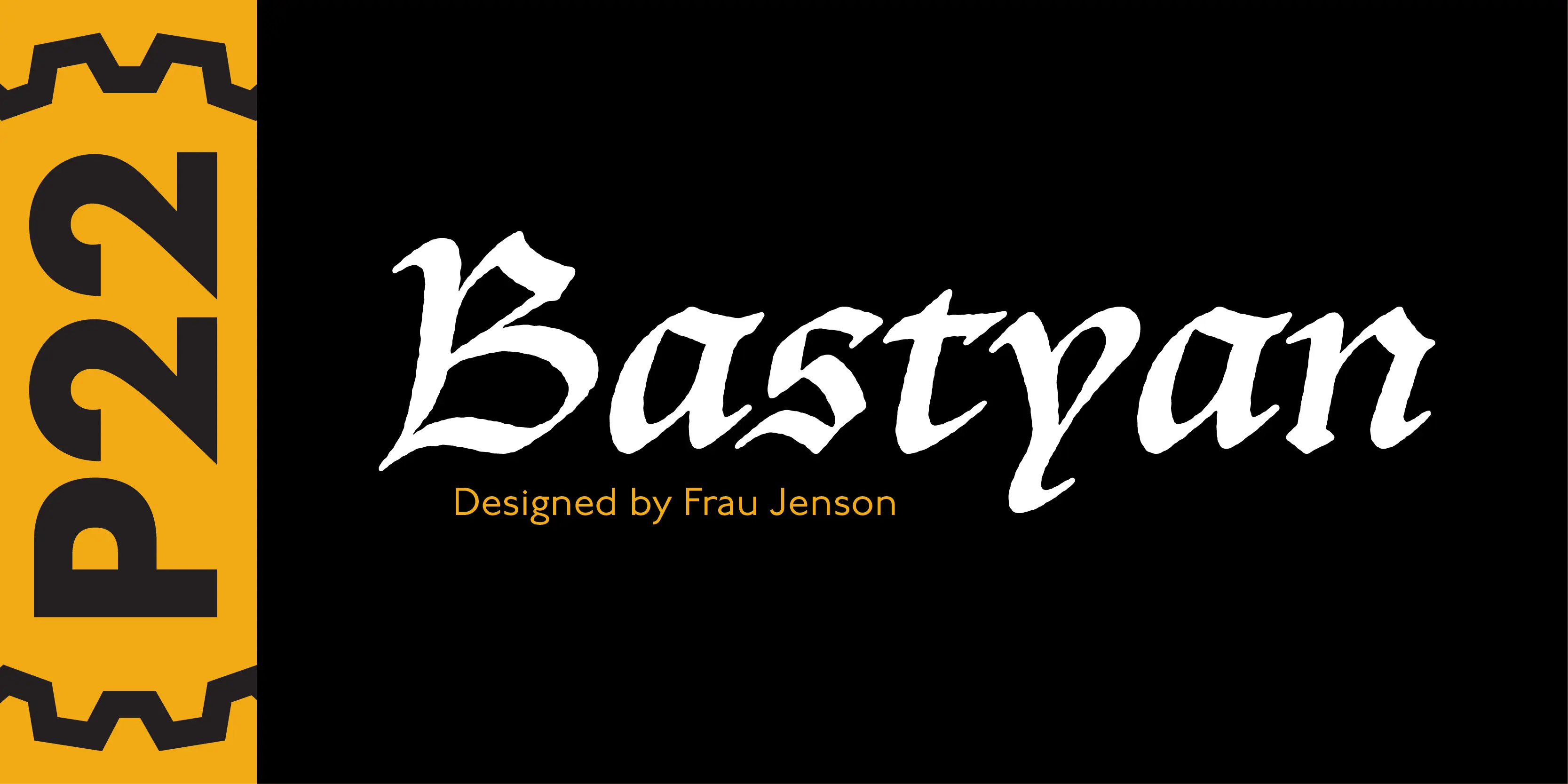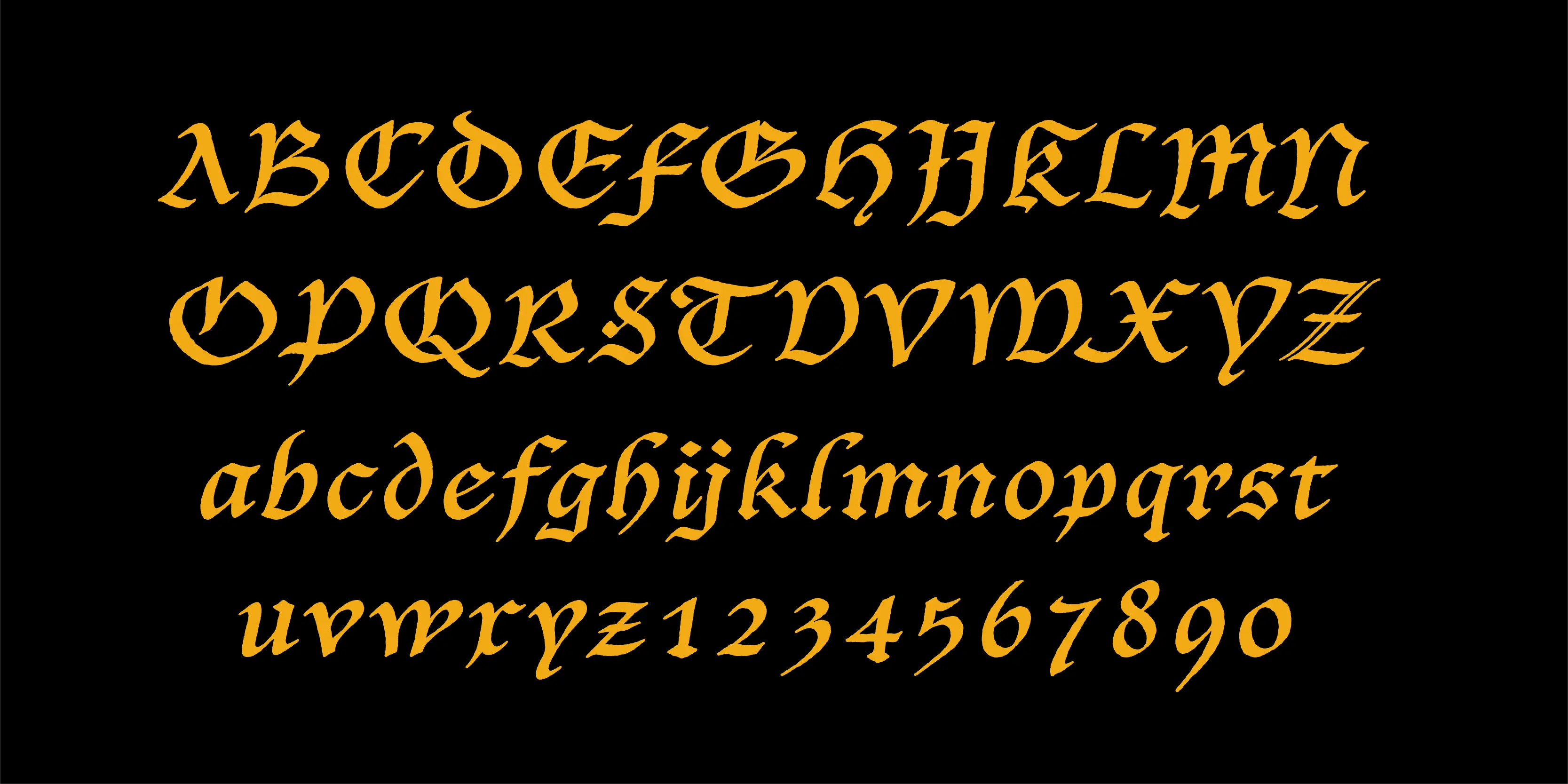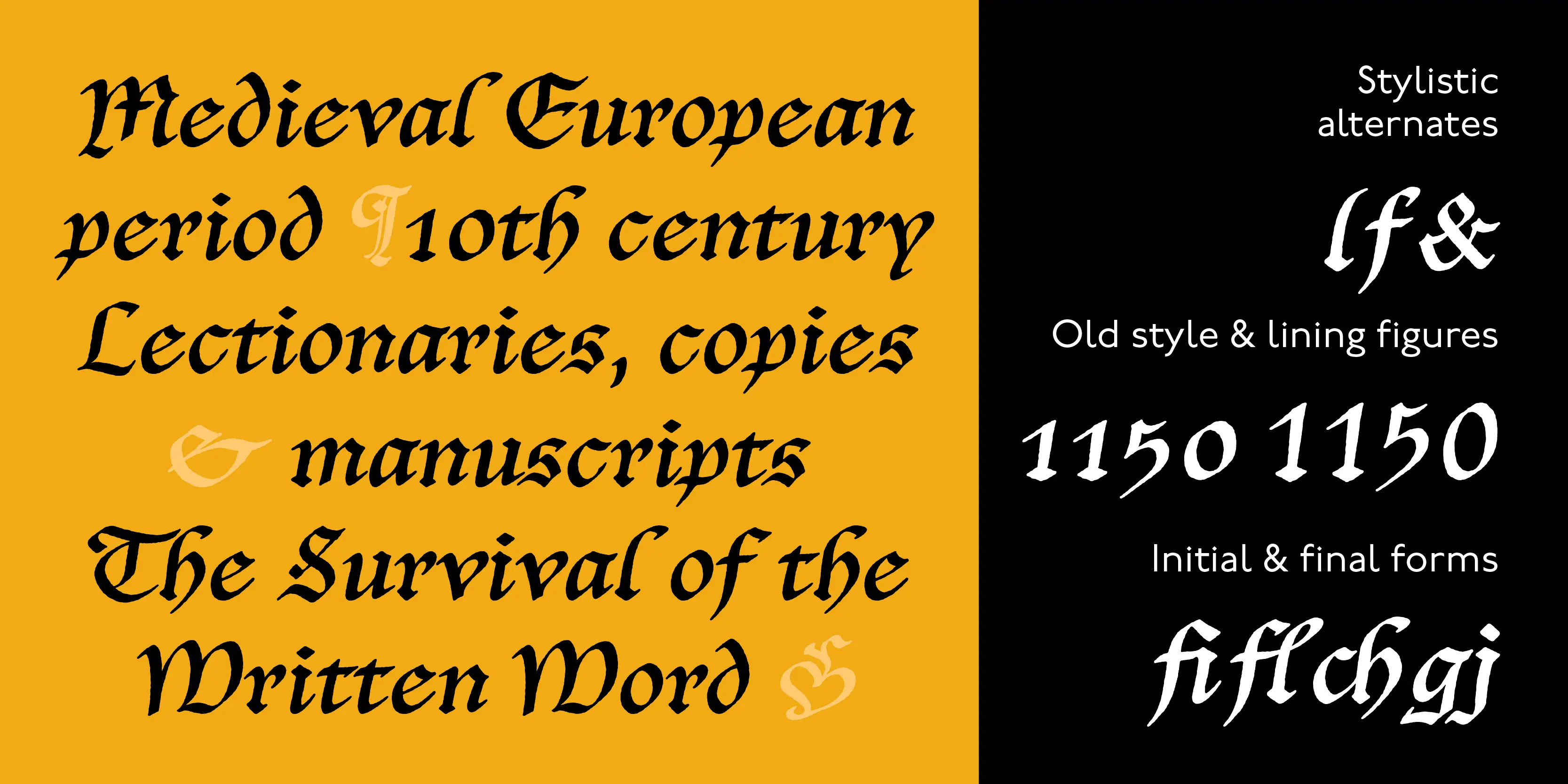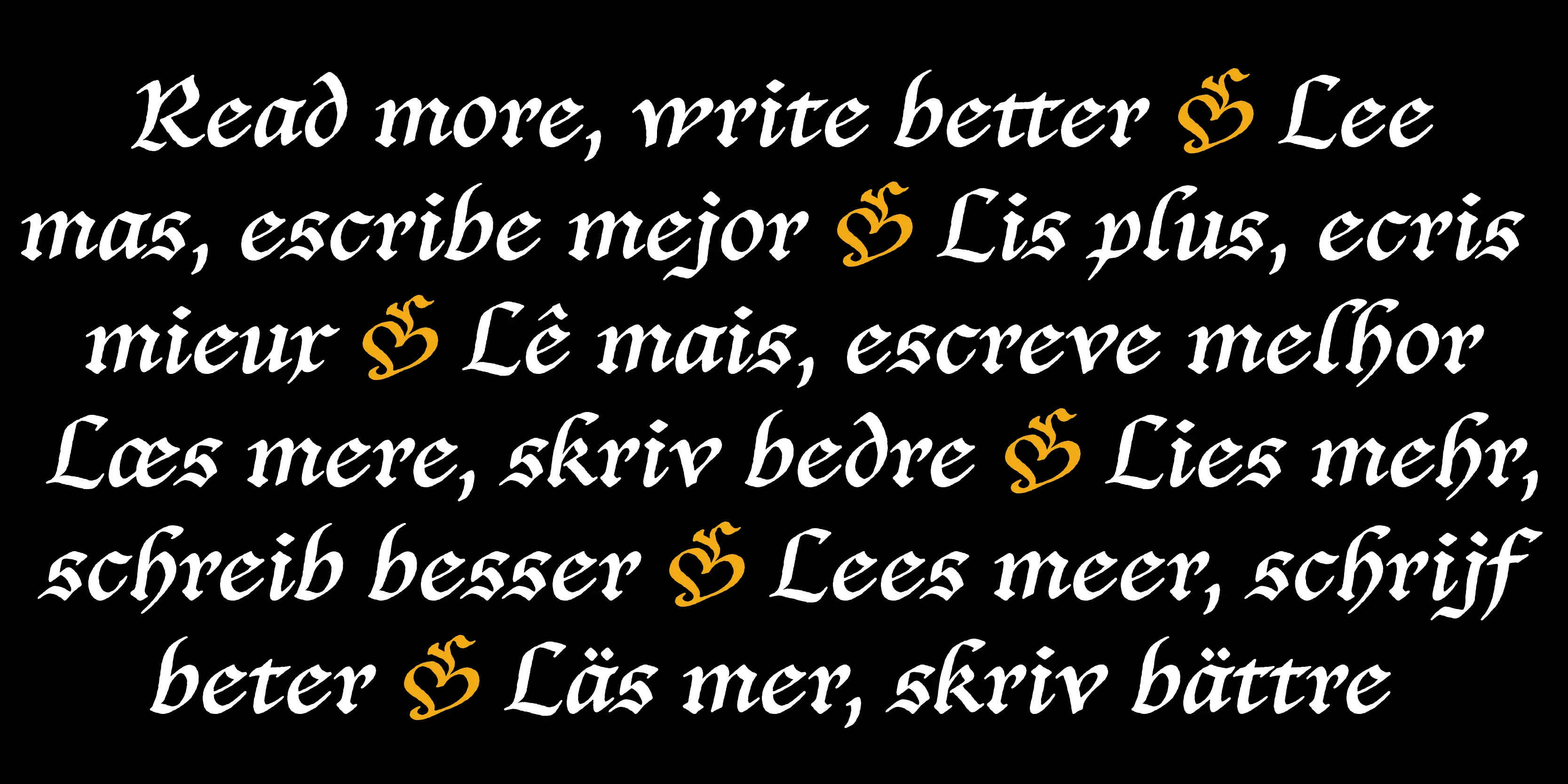
Bastyan Font
Bastyan
P22 Bastyan is a hybrid Italic Blackletter. This typeface resembles Carolingian miniscule scripts and has a timelessness that evokes formality but defies specific historical categorization.
- Common Ligatures
- Discretionary Ligatures
- Fractions
- Lining Numerals
- Old Style Numerals
- Ornaments
- Proportional Numerals
- Slashed Zero
- Stylistic Alternates
- Subscript
- Superscript
- Tabular Numerals